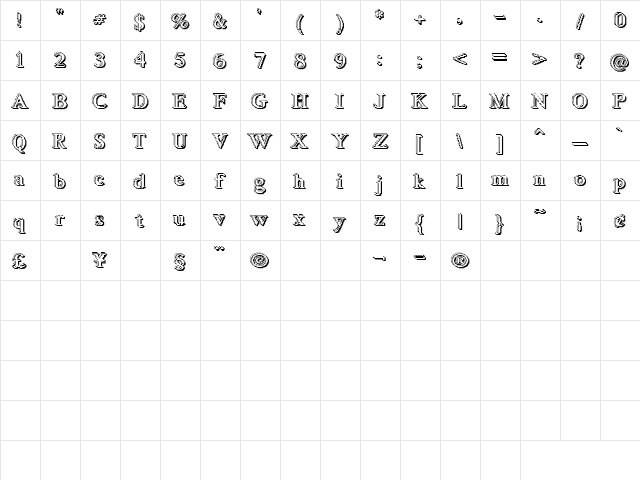
Blockstepped 3D Regular Free Font
Blockstepped 3D Regular
Blockstepped 3D Family
Design Context for Blockstepped 3D
Blockstepped 3D is a composed and adaptable typeface that performs quietly and consistently across a wide range of design contexts.
Pro Tip: Use Blockstepped 3D in both headline and body roles to test its range before committing to a single application.